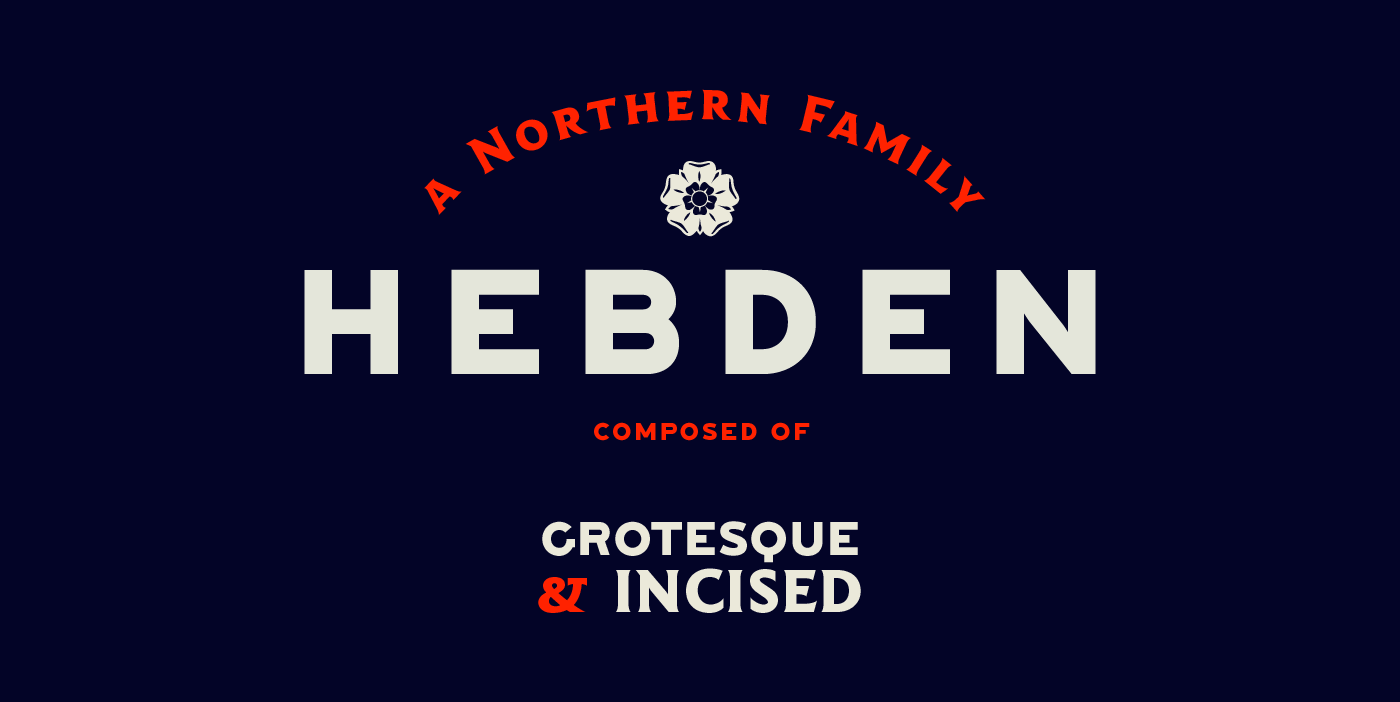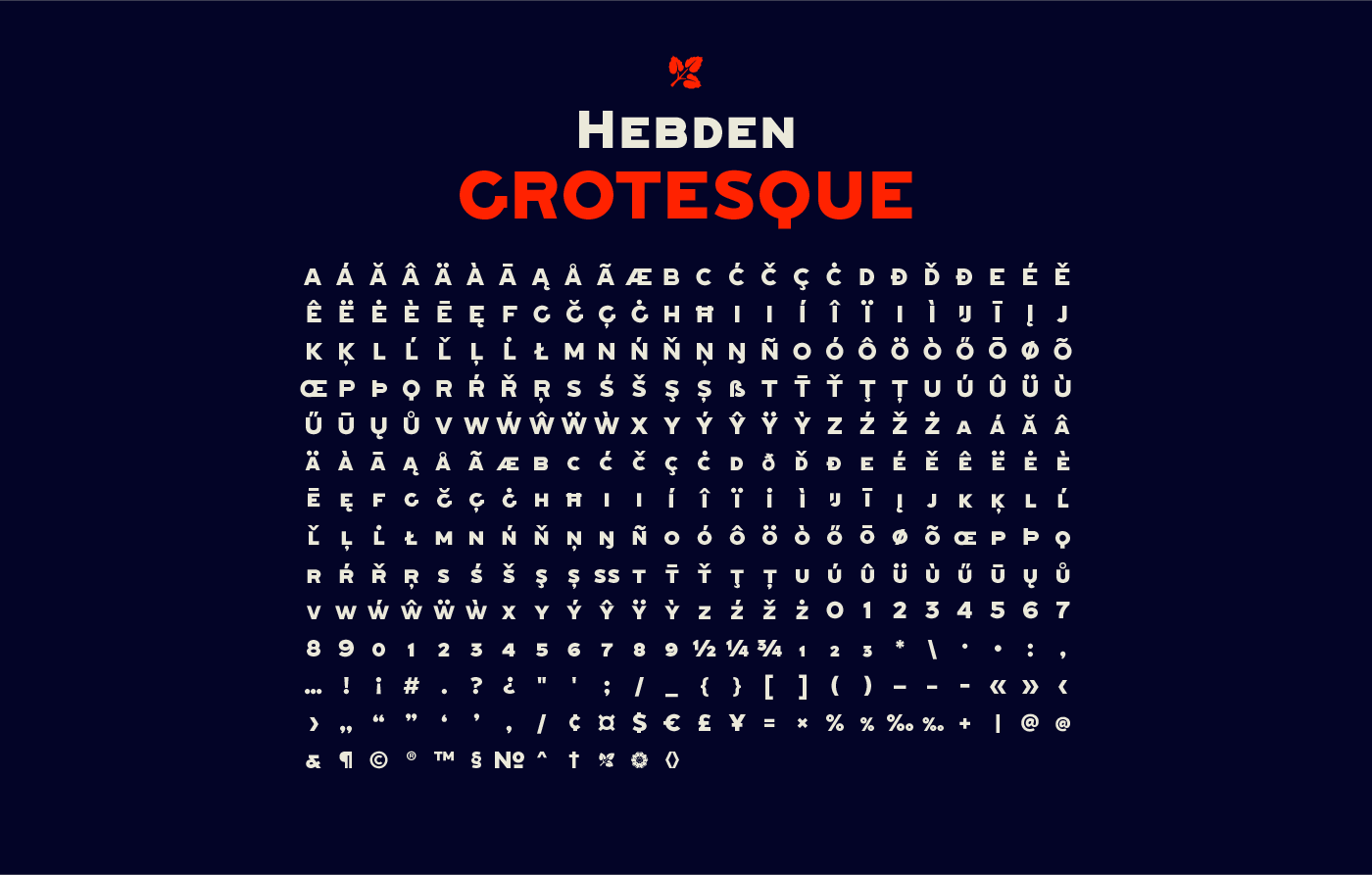
Hebden Typeface
Hebden is a ‘Northern’ font. Inspired by the town Hebden Bridge in Yorkshire, the family is a mix of a grotesque and an incised serif. The grot is based on Victorian train station signage and the serif is style that can be spotted in and around the Yorkshire Dales region. Hebden has a nostalgic twist and is ideal for labelling, signage and memorable messages. The grotesque face with its robust angles and warm circular curves recalls the style of traditional English sans-serifs like Caslon’s 2-Line Egyptian. The incised face has strong but sophisticated and natural forms and is based on a wood carved style popular in the early 20th century. The weight of the two faces are are drawn to complement each other creating an evenly balanced combination. Both faces come with caps, lower caps across letters and numerals, and have Western, Central and Eastern European language support.